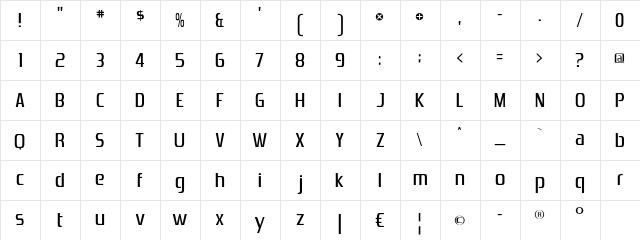
DS ZrnicC Regular
Design Context for DS ZrnicC Typeface
DS ZrnicC takes a measured approach to typography — its balanced proportions and neutral character make it a reliable workhorse for both digital and print work.